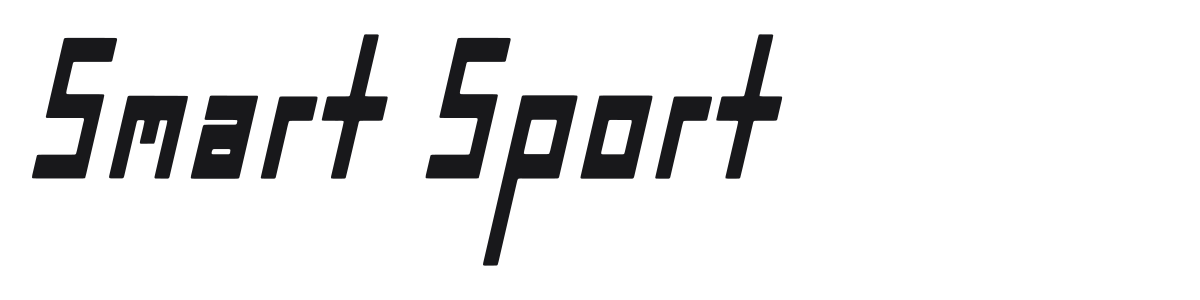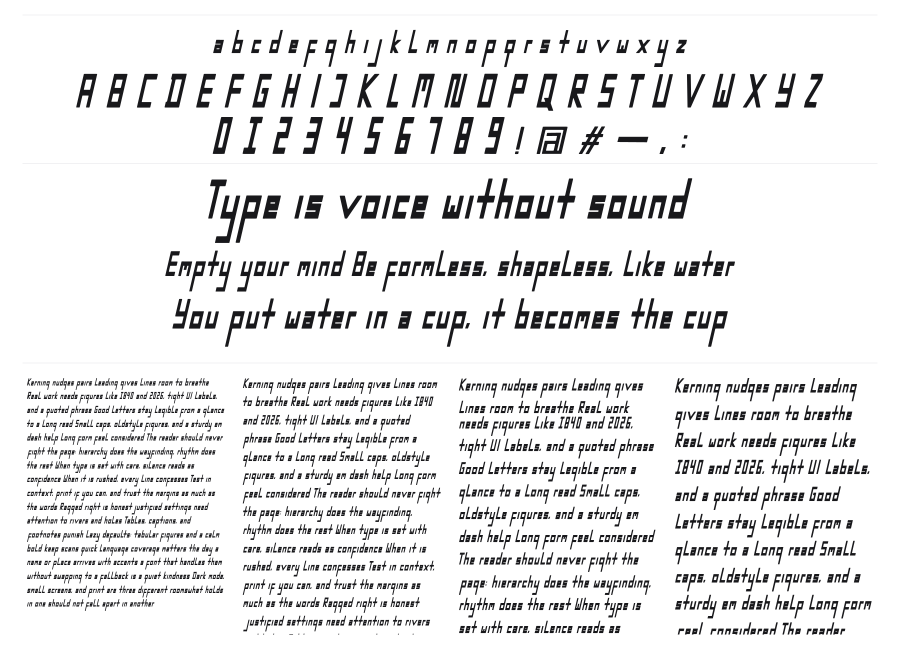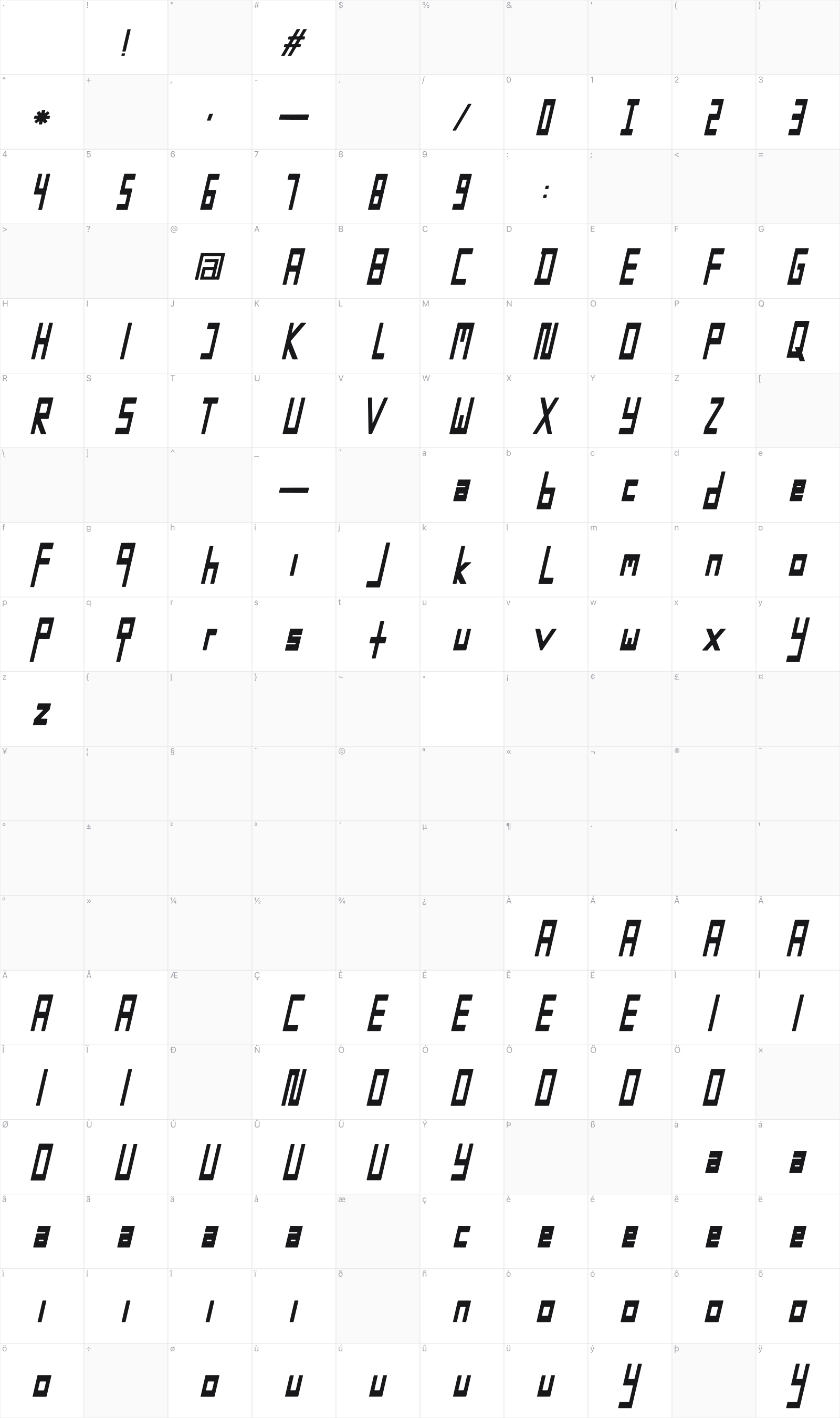
Smart Sport
Smart Sport is a bold condensed geometric sans-serif with a sharp italic lean and angular notched details cut into its strokes. The segmented, mechanical construction pulls from 1970s and 80s sports and arcade typography. It carries a strong sense of speed and works well at large sizes in sports branding, gaming, and high-energy promotional design.